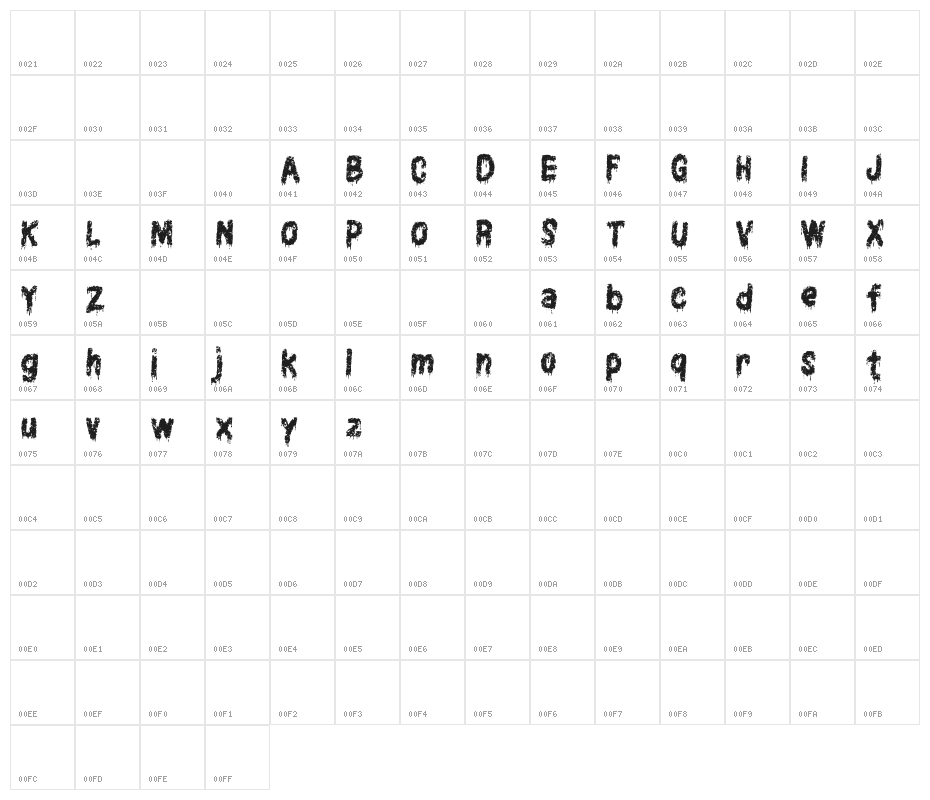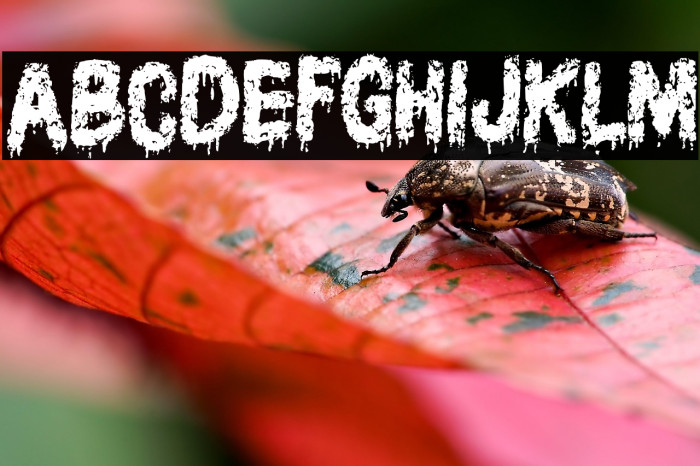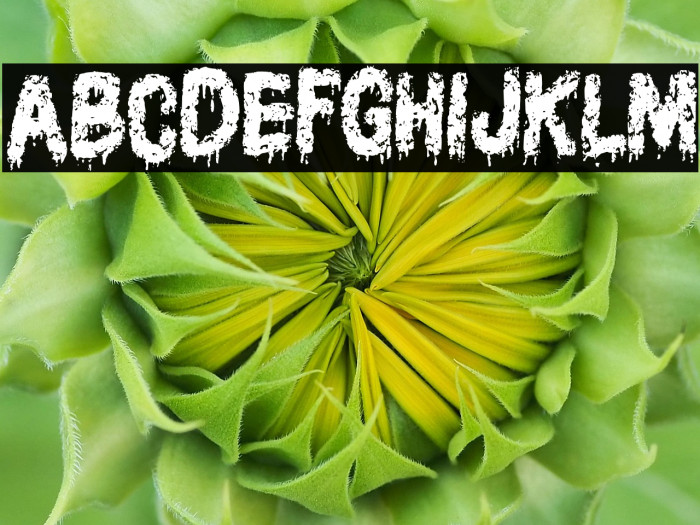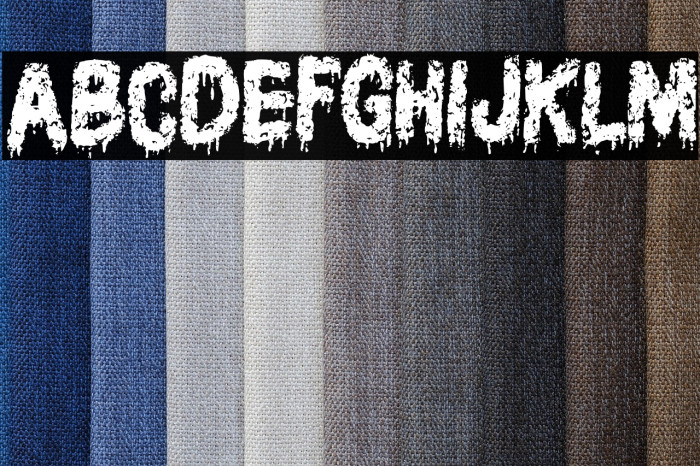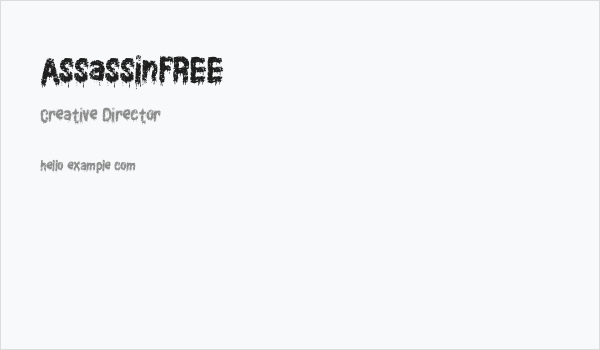
AssassinFREE Font
AssassinFREE Description
This font features a dramatic and intense design, characterized by its rough, textured appearance that resembles dripping paint or ink. The letters have an irregular, jagged edge, giving them a chaotic and edgy look. This style is highly decorative and captures attention with its bold and dynamic presence. The uppercase and lowercase letters maintain a consistent style, enhancing the overall cohesiveness of the font. Its unique aesthetic makes it suitable for projects that require a strong visual impact.
| Use Case | Headlines, Posters, Logos |
| Proposed Projects | Ideal for horror-themed posters, edgy album covers, Halloween events, or any project needing a dramatic and eye-catching typeface. |